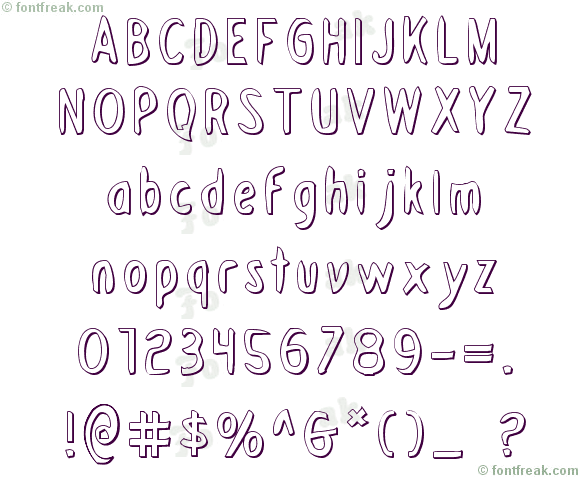
Drafting Table 3D
About Drafting Table 3D
The Drafting Table 3D font, crafted by Daniel Zadorozny, is a unique display typeface that captures the essence of creative drafting and design. This font is characterized by its playful, three-dimensional appearance, combining a condensed structure with an italic style that lends a sense of movement and dynamism. The strokes are bold yet rounded, creating a friendly and approachable aesthetic. The spacing is generous, ensuring clarity and legibility, while the decorative elements evoke a sense of artistic flair, making it an exciting choice for various applications.
Ideal for use in graphic design projects, the Drafting Table 3D font shines in contexts such as signage, children's book covers, and event flyers. Its whimsical nature makes it a perfect fit for projects aimed at young audiences or those that require a touch of creativity, such as art exhibitions or craft fairs. Additionally, small business owners can utilize this font for branding efforts, allowing their marketing materials to stand out with a distinctive and memorable touch. Content creators looking to add character to their blogs or social media posts will also find this font appealing.
The target audience for the Drafting Table 3D font includes graphic designers seeking to enhance their visual projects, small business owners who want an eye-catching brand identity, and content creators looking to engage their audience with playful typography.
What sets the Drafting Table 3D font apart from others is its ability to blend artistic expression with practicality. As a freeware typeface, it offers an accessible option for creatives who want to elevate their designs without the burden of licensing fees. For those interested in exploring this font further, a Drafting Table 3D font free download is available, inviting users to unleash their creativity with this distinctive typeface.